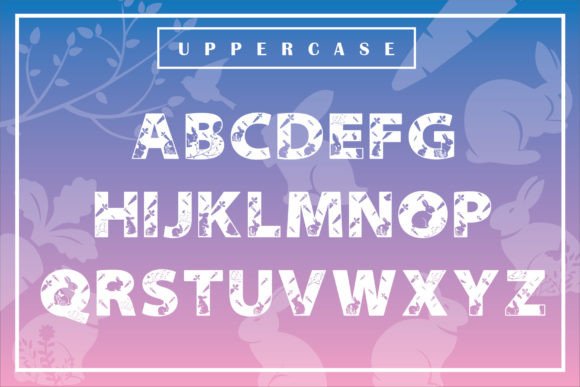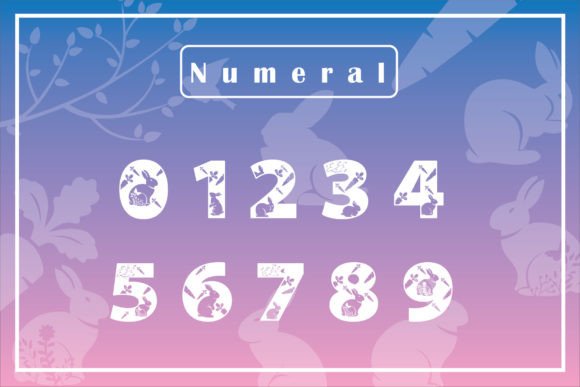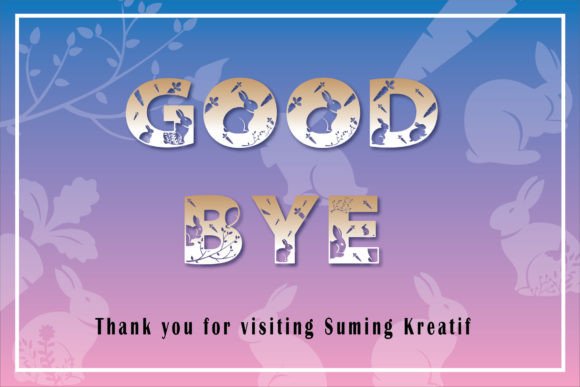
Rabbit’s Happiness Font – Free Download
Introduction to Rabbit’s Happiness Font
Rabbit’s Happiness font is perfect for adding a modern and stylish touch to your designs.
Its attractive and beautiful features include tiny elements inside each character, making it unique and eye-catching Perfect for any project.
Key Features of Rabbit’s Happiness Font
Why Choose Rabbit’s Happiness Font?
Rabbit’s Happiness Font offers exceptional quality and versatility, making it a valuable addition to your design toolkit. Whether you’re creating for personal projects or commercial use, Rabbit’s Happiness Font delivers professional results.